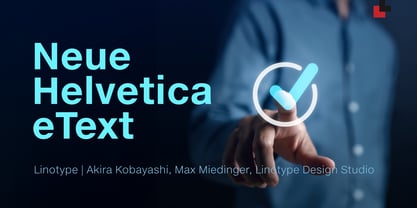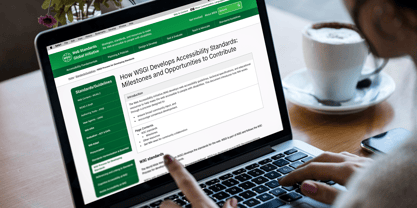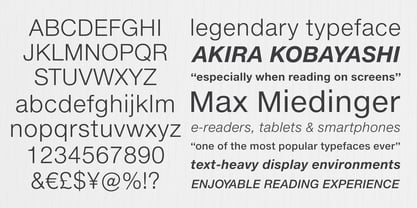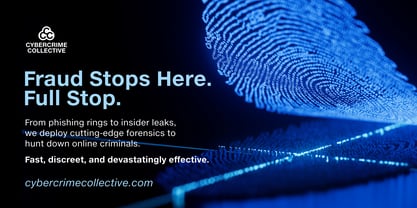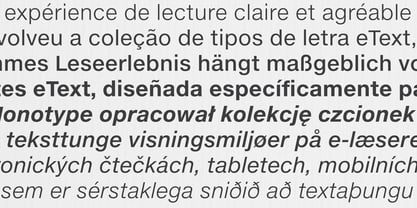
Neue Helvetica® eText
by Linotype
The Neue Helvetica eText Font Family was designed by Akira Kobayashi, Max Miedinger, Linotype Design Studio and published by Linotype. Neue Helvetica eText contains 8 styles and family package options. More about this family
Neue Helvetica® eText, refined under the leadership of Akira Kobayashi and the Monotype Design Studio, is a purpose-built evolution of the Helvetica family, tuned explicitly for clear, friendly text rendering on screens such as tablets, e-readers, and mobile devices. This version of Helvetica enhances the classic Helvetica aesthetic with thoughtful adjustments: providing more open letter spacing, a large x-height, and refined hinting to ensure crisp on-screen display and improved readability at small point sizes. Its legibility enhancements – especially beneficial in dyslexia-aware applications – help enhance reading comprehension and reduce visual fatigue for all readers. Neue Helvetica eText is a go-to solution for accessible PDFs, digital communication, and content-rich environments that require both style and substance.
Designers: Akira Kobayashi, Max Miedinger, Linotype Design Studio
Foundry: Linotype